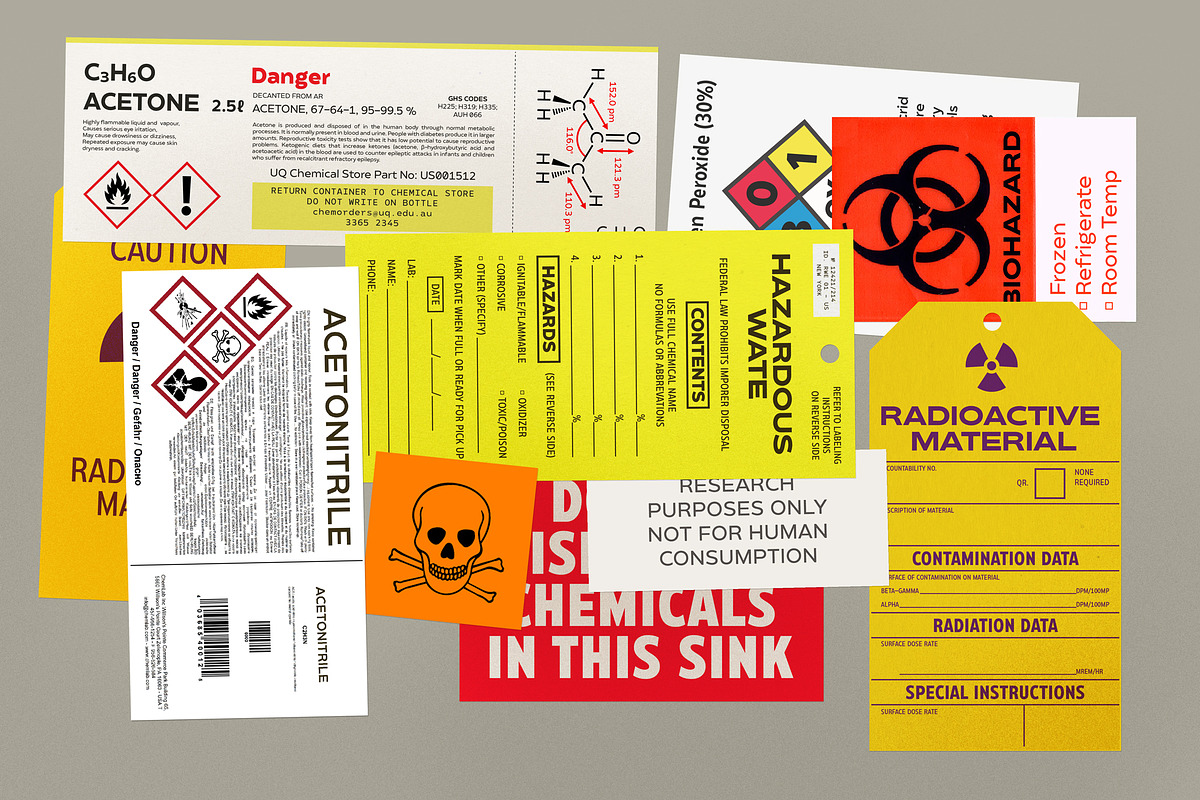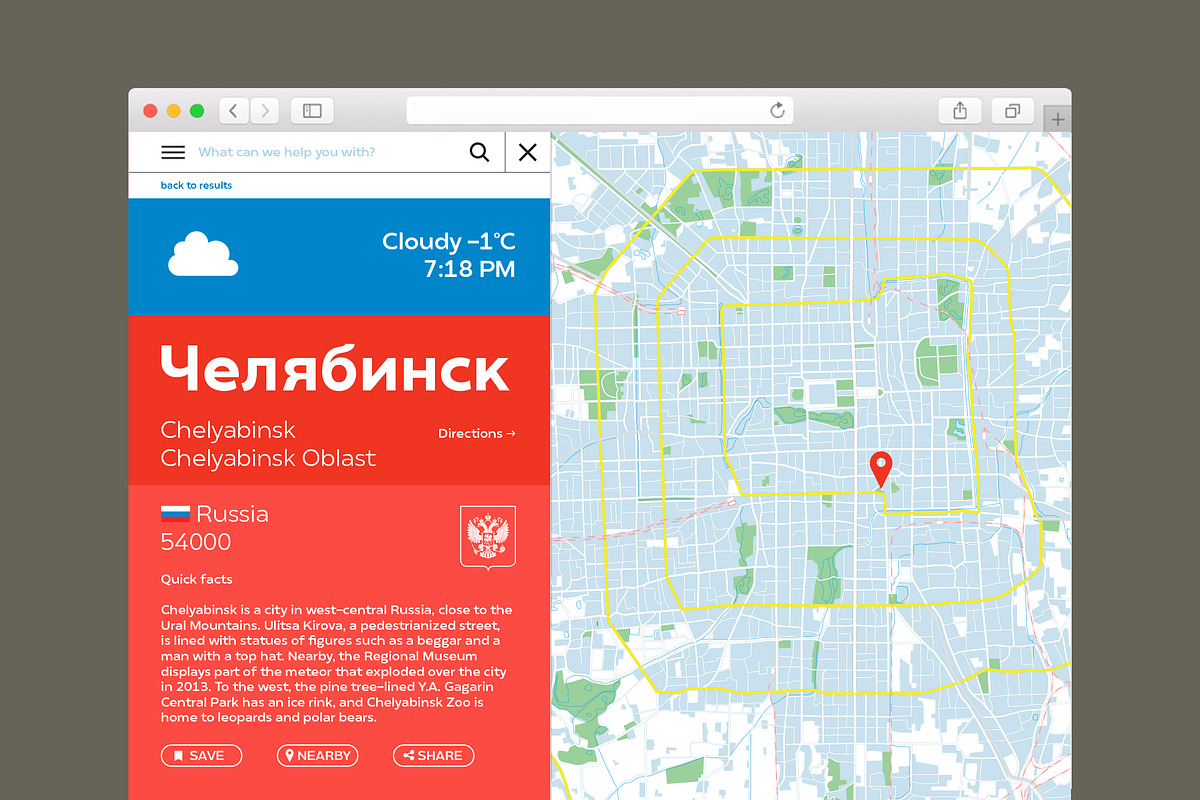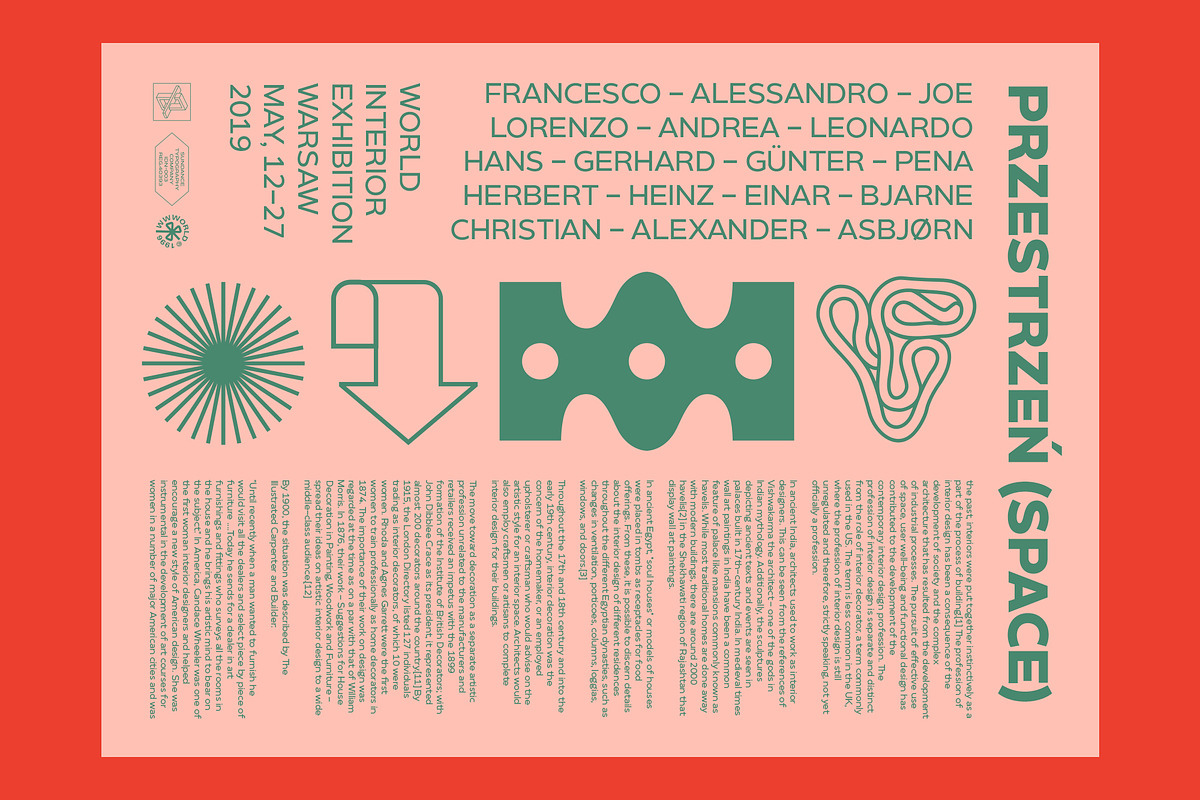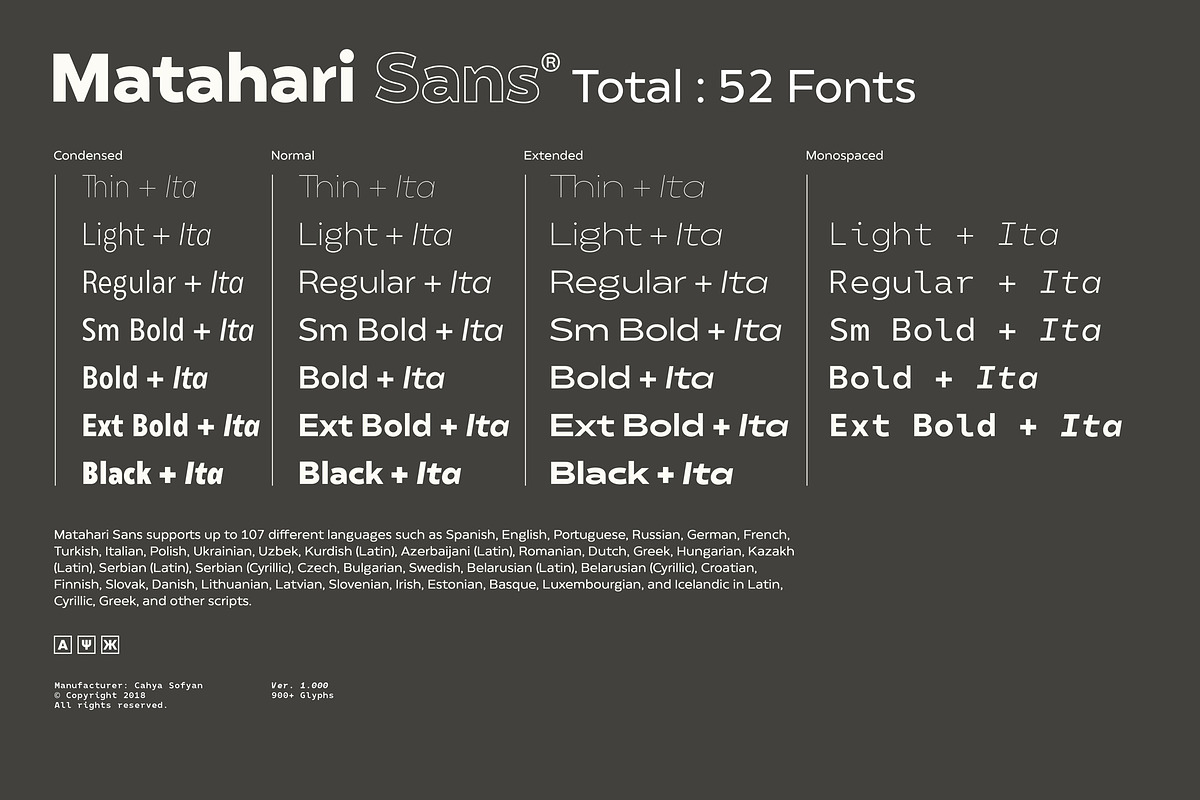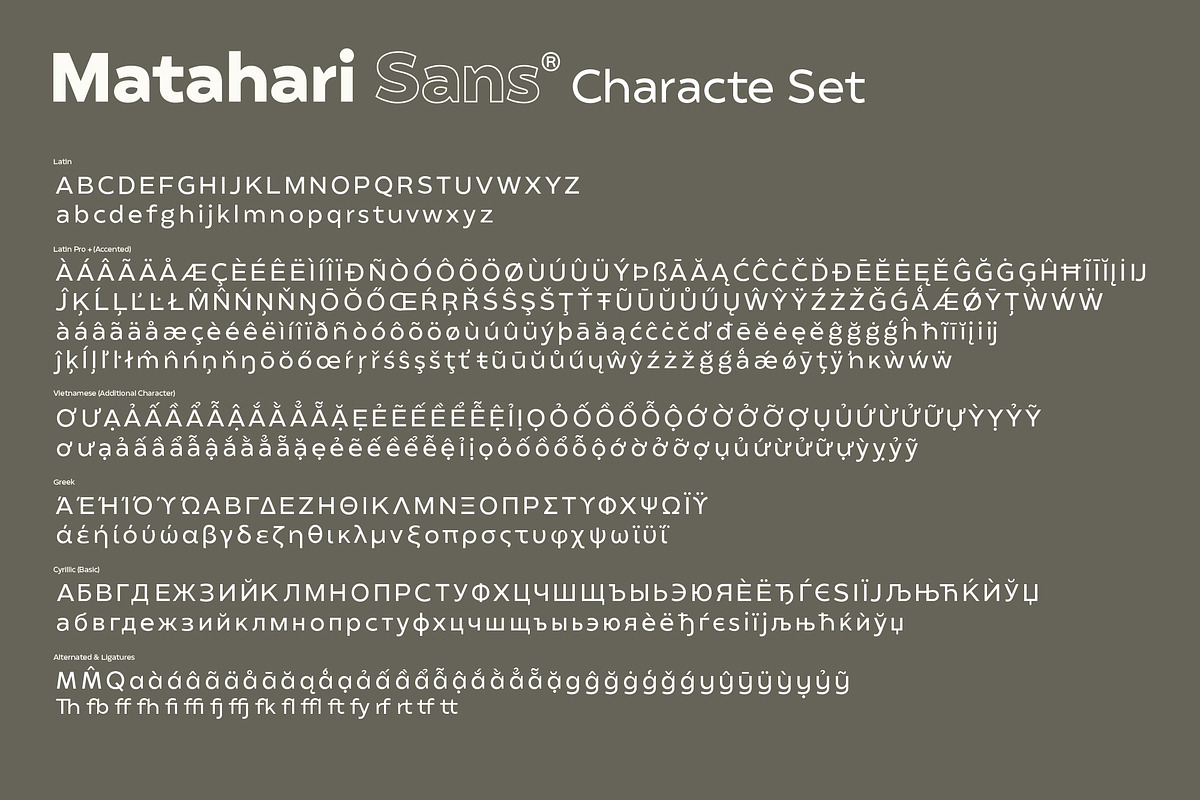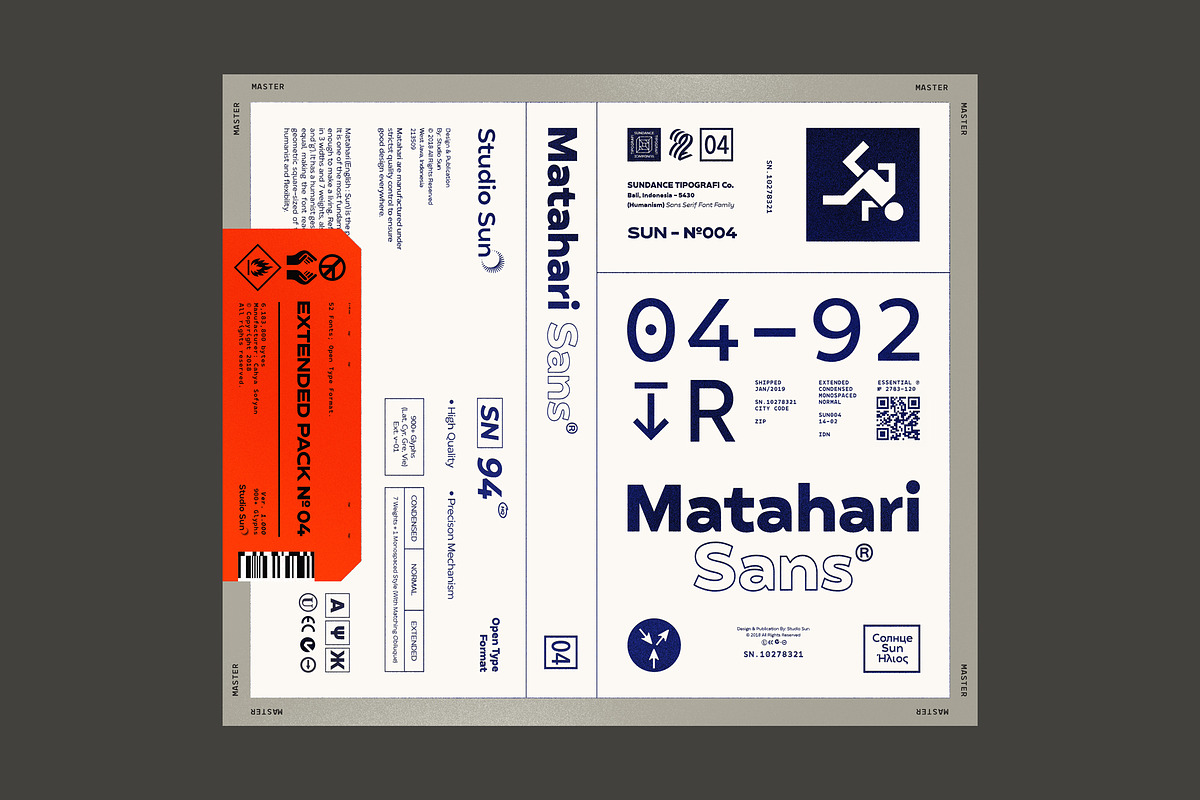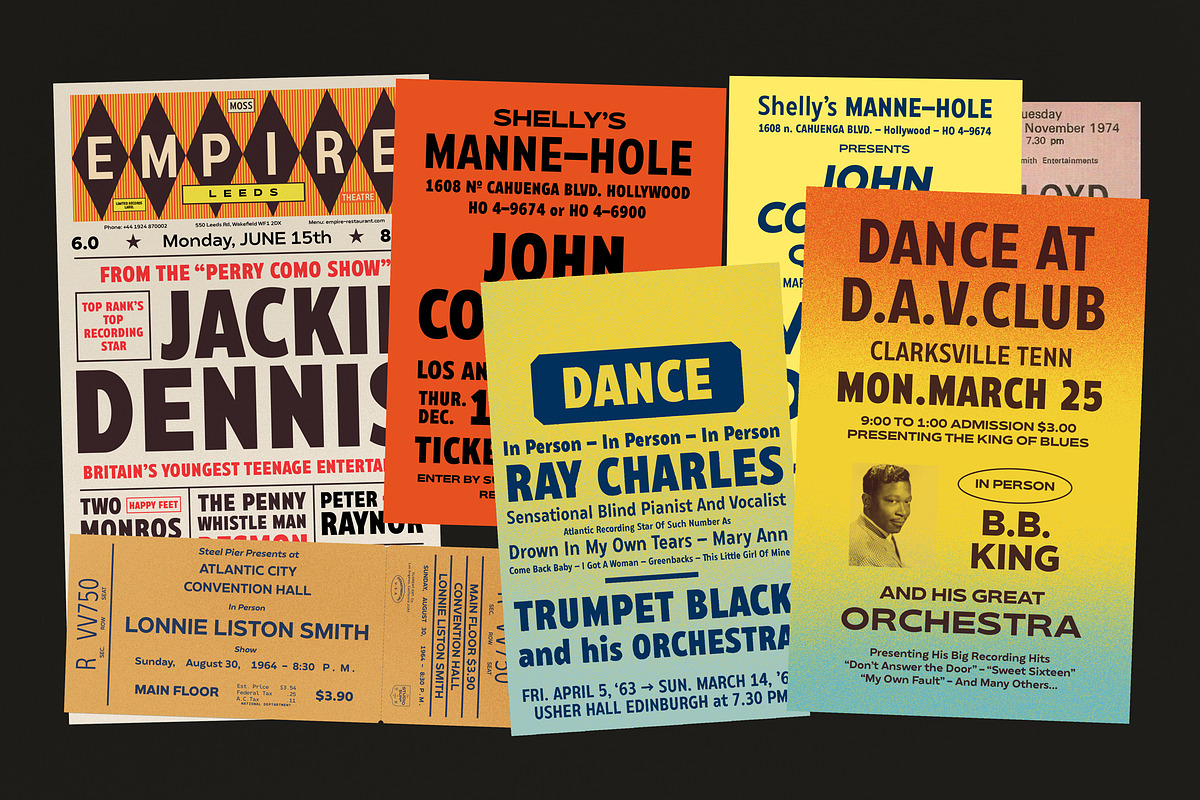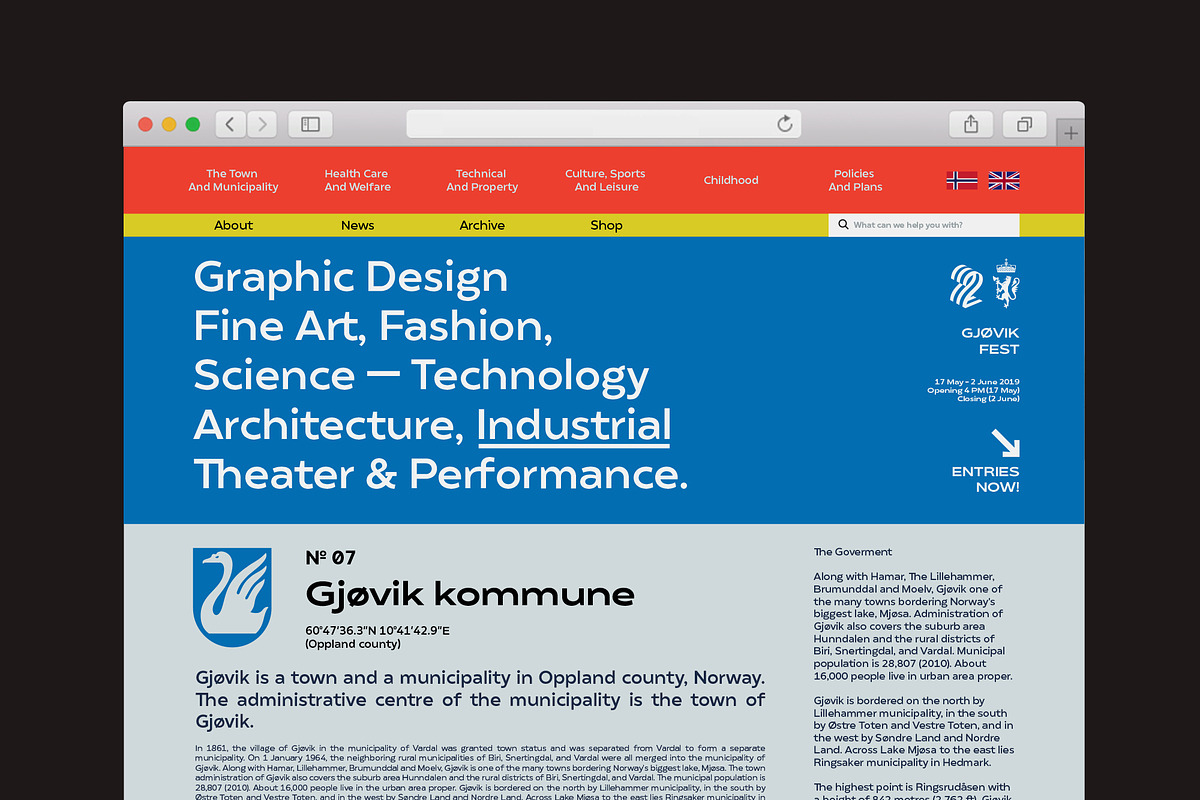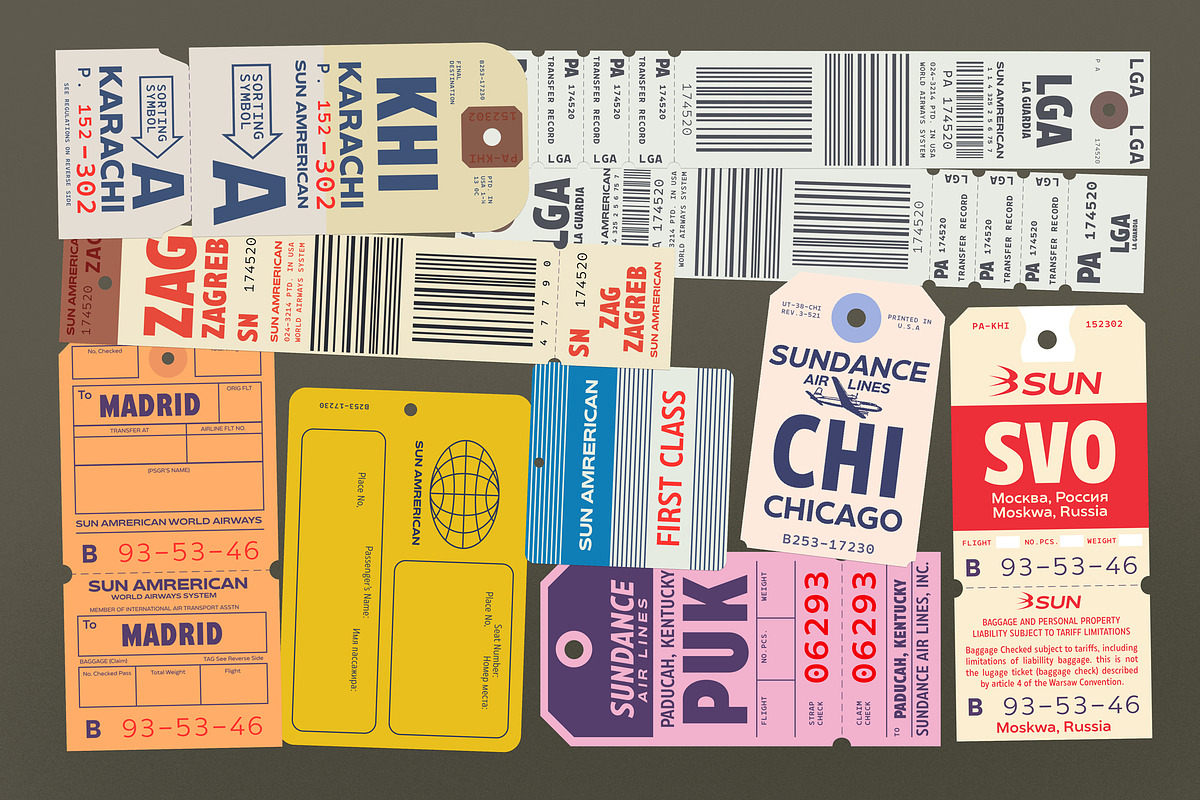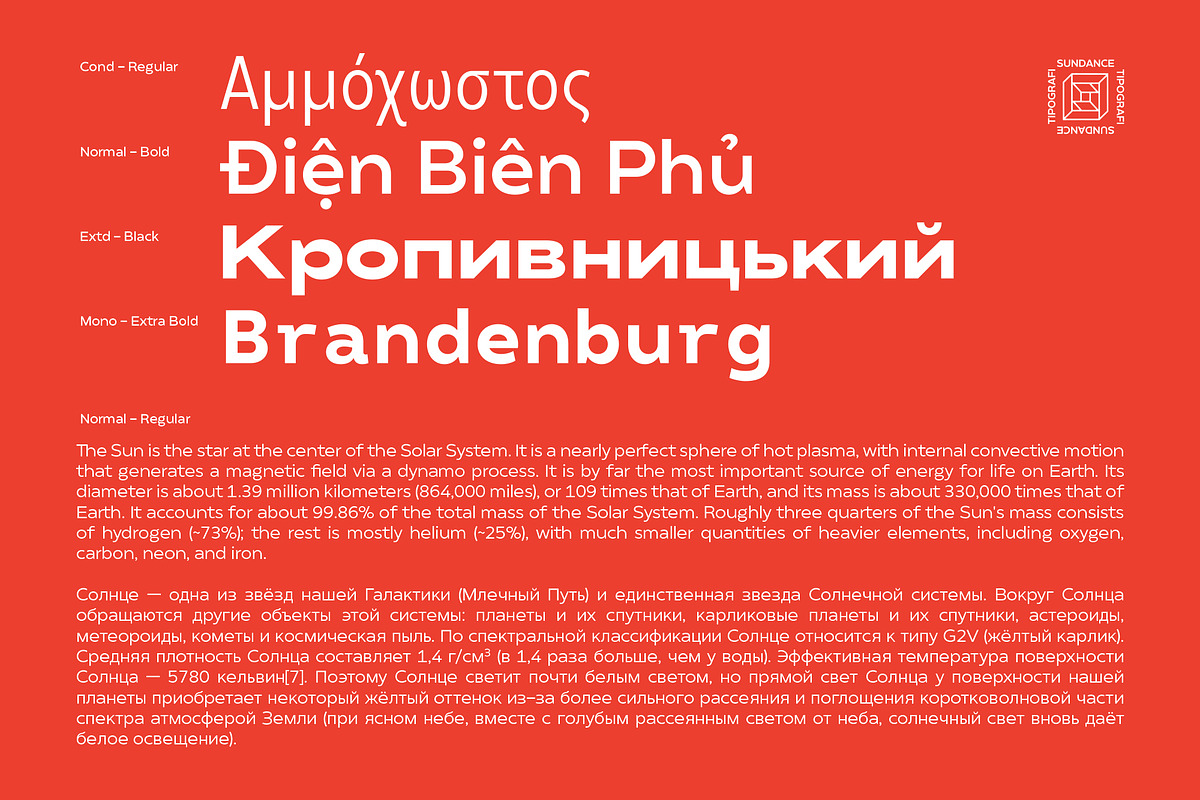
Matahari Sans - Font Family
Matahari (English : Sun) is the power source of life. The symbol of power and energy that synergies with other part of daily lives. It is one of the most fundamental thing us humans need, just like communication. And like Matahari itself, words are powerful enough to make a living.
Referring to Grotesque Font and influenced by the works of Eric Gill, Matahari Typeface is available in 3 widths and 7 weights, also in Oblique version in each font. The font uses oldstyle and transitional letters (double-story ‘a’ and ‘g’). It has a humanist gesture, the thickness of the font is semi-monolinear where the horizontal and vertical size is almost equal, making the font reach its maximum optical readability even in small sizes. The font anatomy refers to the basic geometric square-sized of the letter ‘M’, while the letters of S/C/G/c/e have uneven curve shape which give the sense of humanist and flexibility.
This typeface is ideal for various design needs, from Printing to On-Screen/Digital Reading, from Brand Identity, Posters, Caption, Headline, to Body Text. With the numbers of widths available, the font can be used for all kinds of purposes (Label, Signage, Packaging, Website, etc). Supported well over 95+ languages, including Greek & Cyrillic, Matahari Typeface will give you an excellent way in aesthetic communication and message-delivering.
Available in 3 Widths (Condensed, Normal, Extended) & Monospaced with 7 Weights (Thin, Light, Regular, SemiBold, Bold, ExtraBold, Black) + Oblique Style.
Total: 52 Fonts 900+ Glyphs